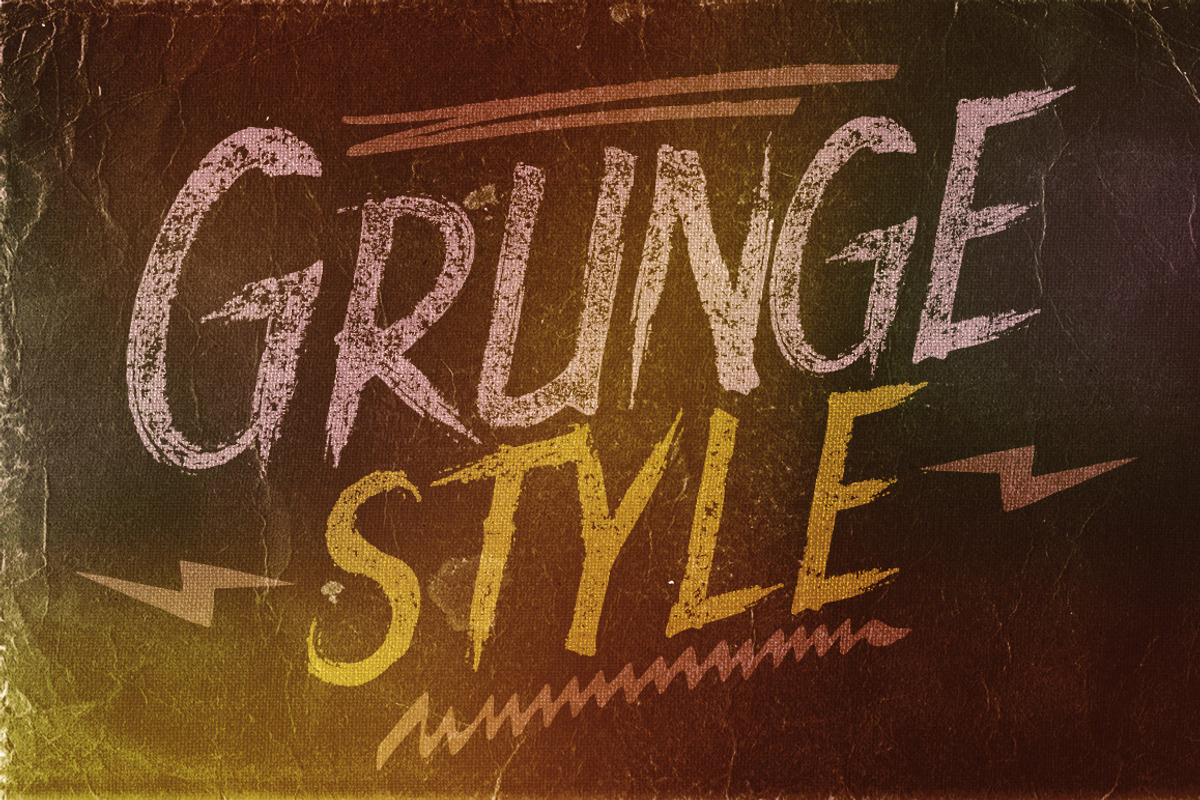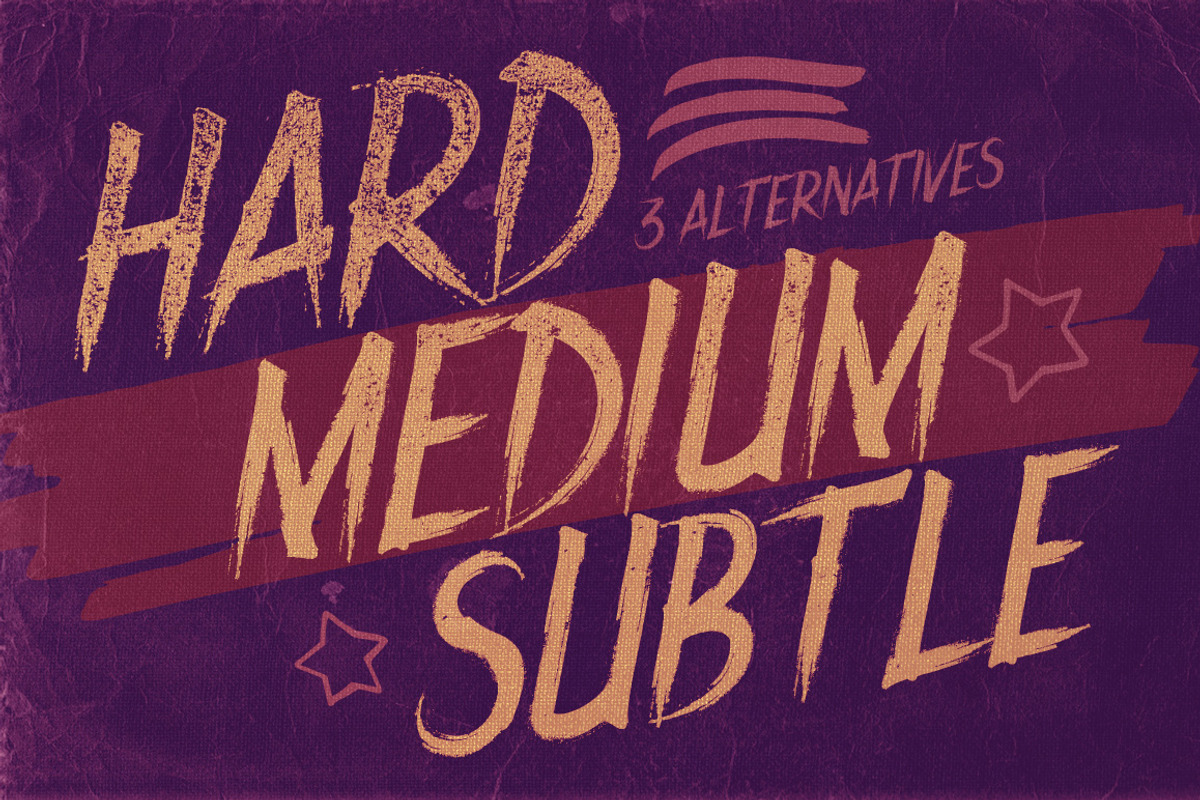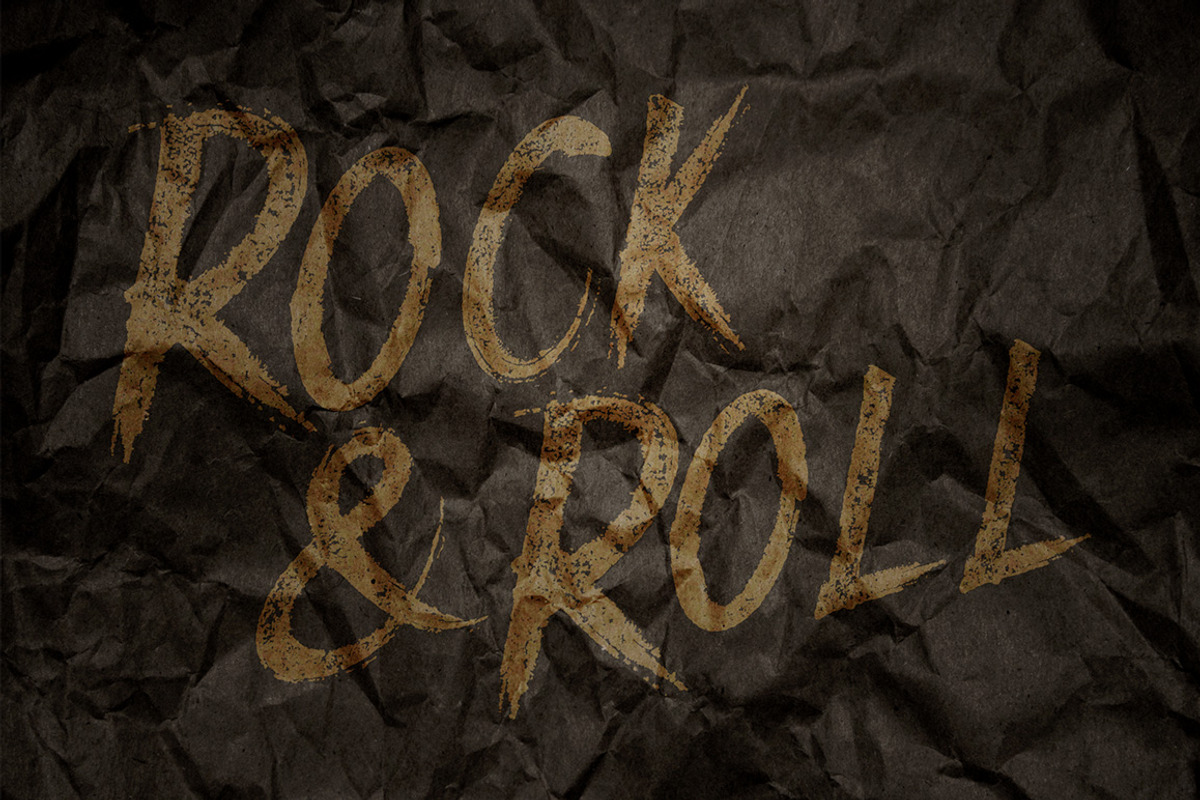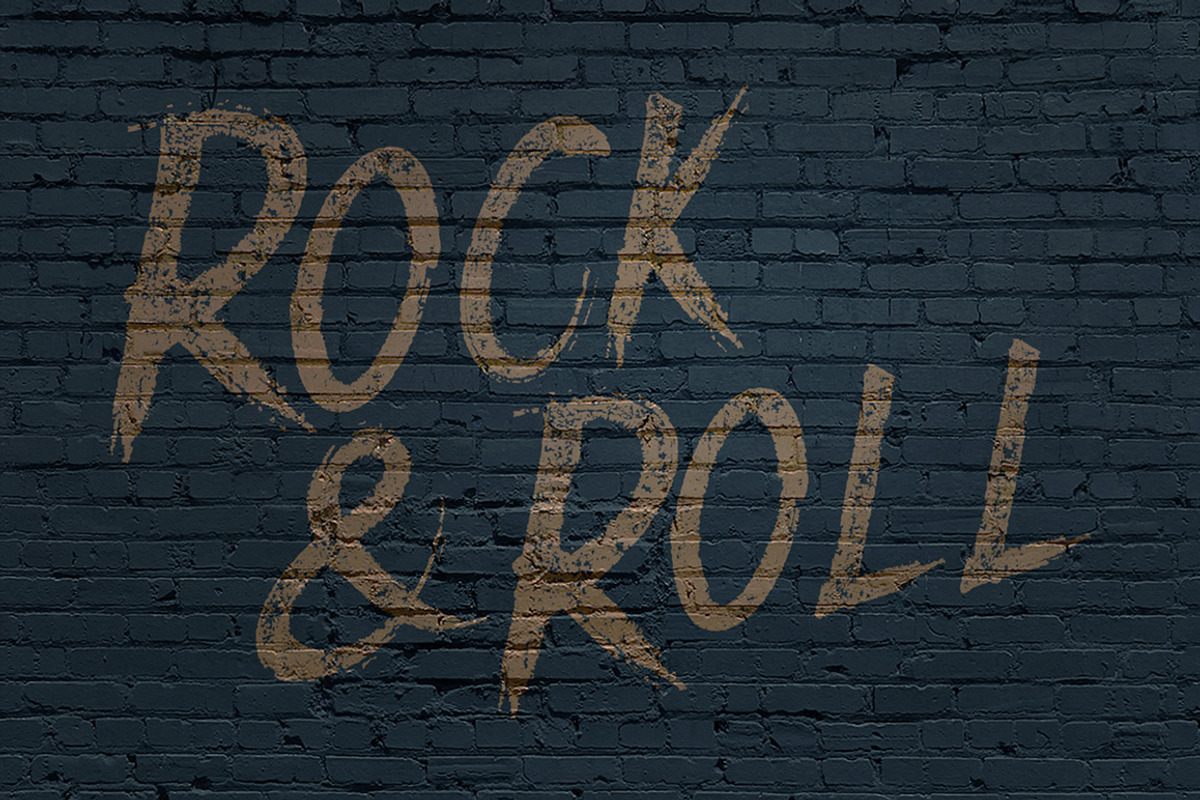
Rocknroll Font
Rocknroll Font by Cruzine is a font selected for branding, posters, packaging, typography.
Why Rocknroll Font is worth a look
Rocknroll Font by Cruzine fits naturally into Branding, posters, packaging, typography.